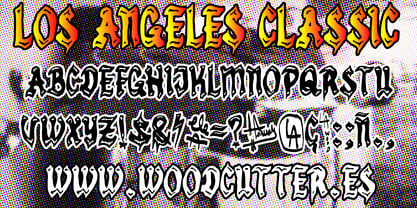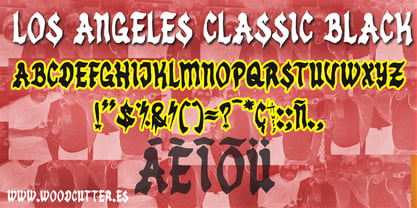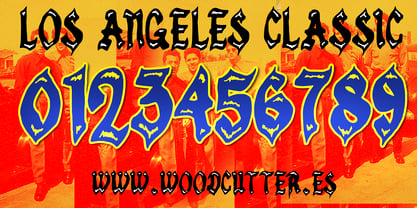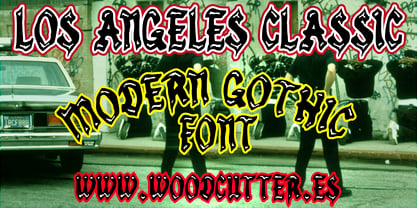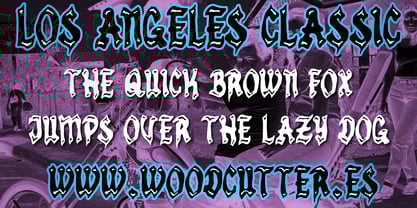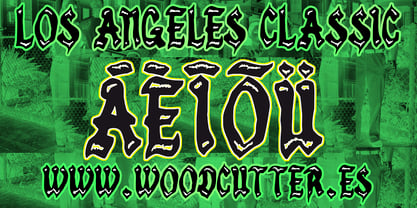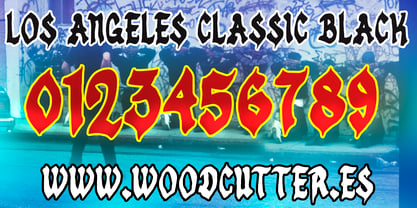
Los Angeles Classic
by Woodcutter
The Los Angeles Classic Font Family was designed by Jordi Manero and published by Woodcutter. Los Angeles Classic contains 2 styles and family package options. More about this family
The "Los Angeles Classic" typeface family is an uppercase Gothic-style font, decorated in the purest Chicano tradition and inspired by Los Angeles’ urban culture. Its stylized letters, with ornamental details and an imposing structure, convey a sense of tradition, strength, and authenticity.
This family includes two versions:
"Los Angeles Classic", the main version, featuring intricate decorations on each letter and a shading effect that adds depth and a distinctive street-style touch.
"Los Angeles Classic Black", a fully black variant, without the shadows or embellishments, for a more solid, strong, and direct look.
With its iconic aesthetic, "Los Angeles Classic" is perfect for posters, tattoos, logos, covers, and projects that seek to reflect the essence of Chicano street art. Its striking yet elegant presence makes it an ideal font to convey respect, history, and attitude.